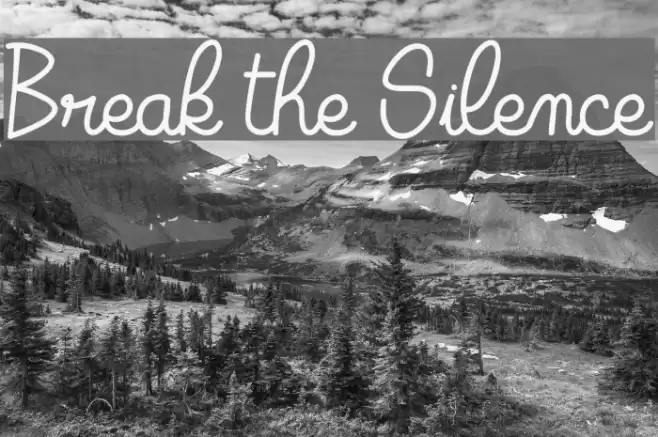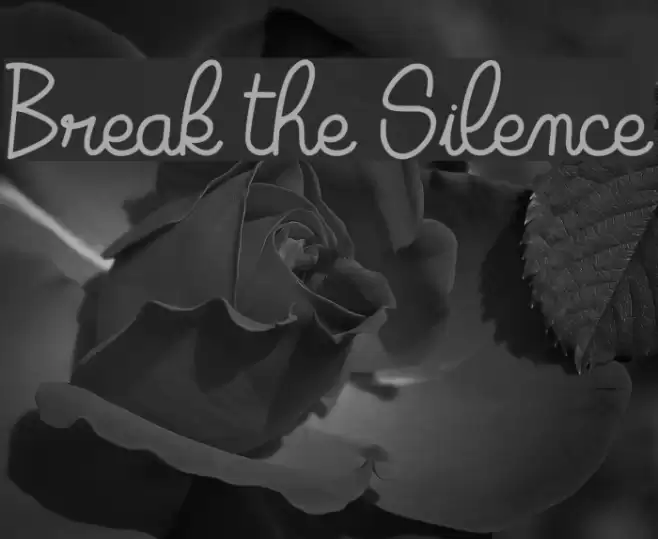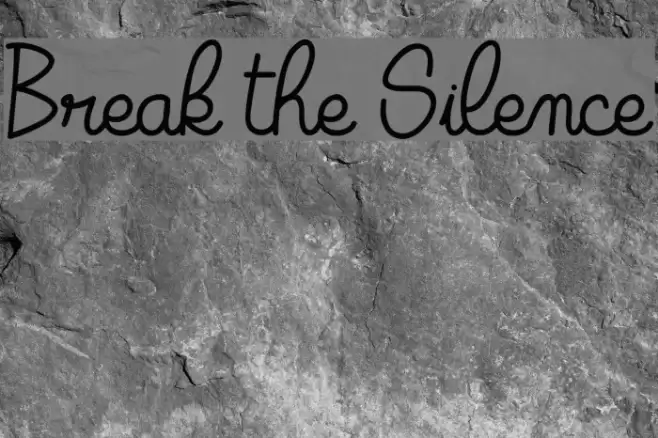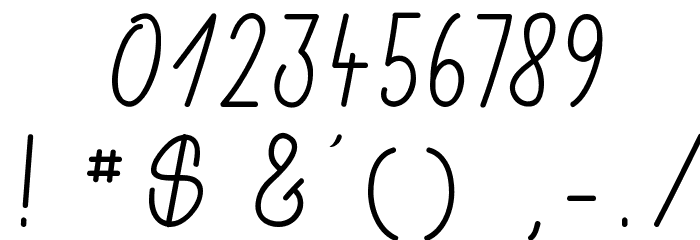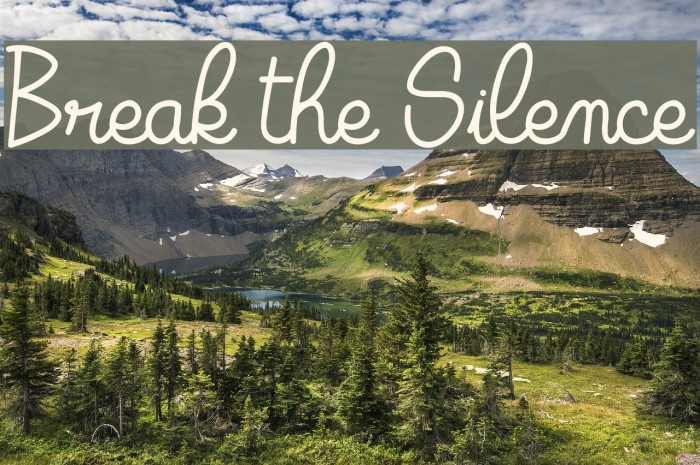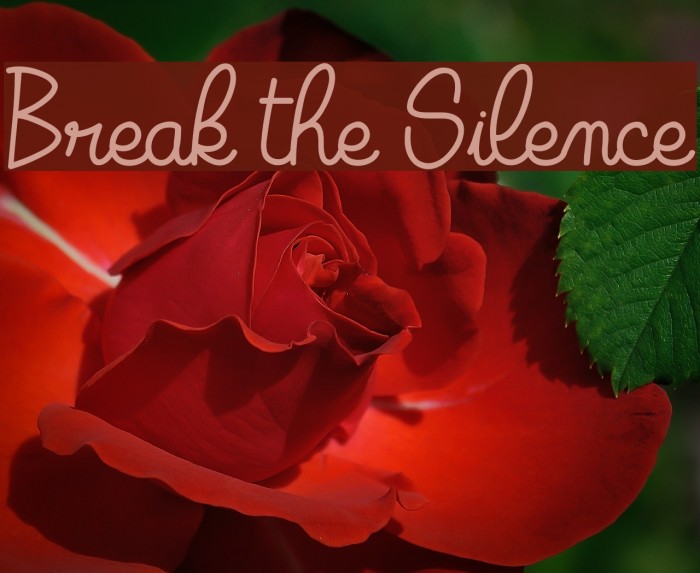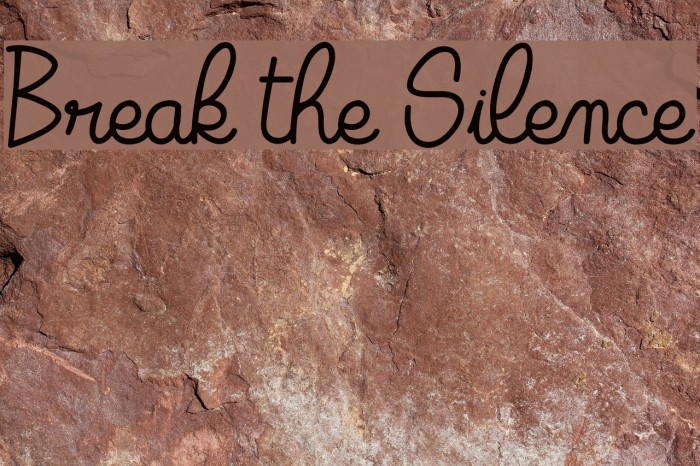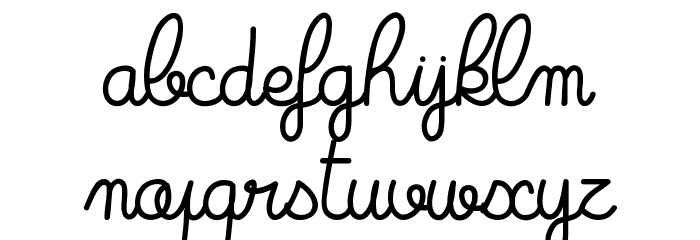
Break the Silence Font
Break the Silence Description
This font features a playful and casual handwritten style, characterized by its smooth, flowing lines and slightly irregular shapes. The uppercase letters are tall and narrow, giving a sense of elegance and sophistication, while the lowercase letters are more rounded and connected, adding a touch of warmth and friendliness. The numbers are consistent with the overall style, maintaining the same fluidity and charm. Special characters are well-integrated, ensuring versatility in various design applications. The font's unique personality makes it suitable for projects that require a personal touch or a creative flair.
A playful, casual handwritten font with smooth, flowing lines and a friendly appearance from Uncategorized fonts.
- Proposed Projects: Ideal for greeting cards, invitations, personal branding, and creative projects that require a personal touch.
- Overall Style: Casual, Playful
- Use Case: Logos, Invitations, Personal Branding